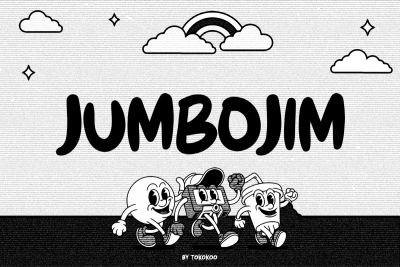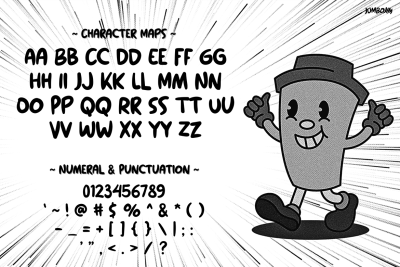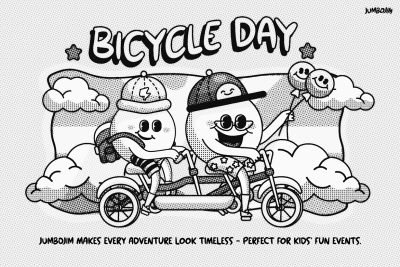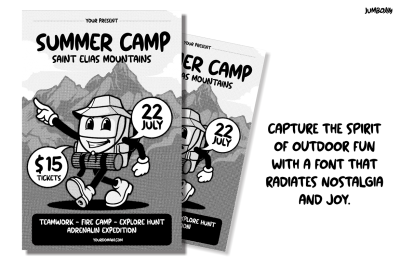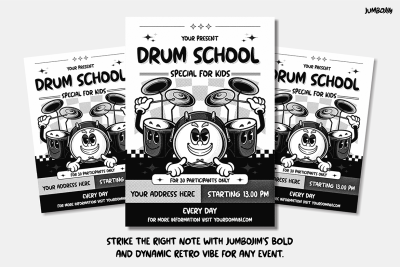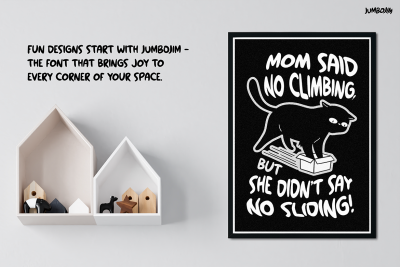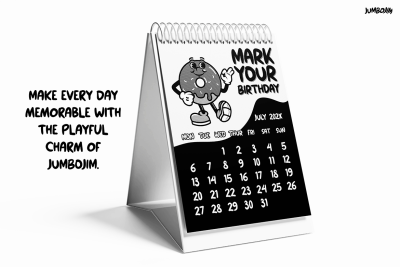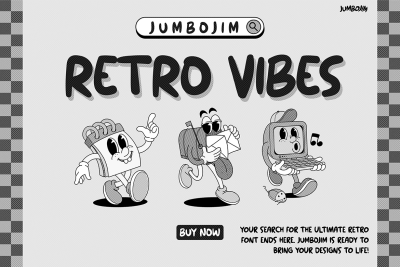
Kids Font Jumbojim is a lively, cartoon-inspired display font designed to spark joy and creativity. Its rounded, bubbly letterforms bring charm and playfulness, making it perfect for capturing the attention of children and families. Moreover, with its bold yet approachable style, Jumbojim adds fun and imagination to any project. Whether youโre crafting a childrenโs book, designing merchandise, or creating event posters, Jumbojim delivers a unique and cheerful personality that stands out.
This font stands out with its bold shapes and quirky appeal. Additionally, it balances readability with a whimsical touch, making it ideal for both print and digital use. Its hand-drawn feel evokes creativity and storytelling, which is perfect for entertaining or engaging young audiences. Furthermore, it works seamlessly with vibrant colors, dynamic layouts, and playful illustrations, making it a versatile option for any project.
Jumbojim isnโt just a typefaceโitโs a celebration of fun and laughter. In addition, it ensures your designs are not only eye-catching but also evoke joy and adventure. If youโre looking to add a playful, engaging touch to your work, Kids Font Jumbojim is an excellent choice.
Who Should Use Kids Font Jumbojim?
Kids Font Jumbojim is perfect for creators and brands targeting younger audiences or fun-filled projects. For instance, childrenโs book authors can use it to create whimsical titles and headings that appeal to young readers. Its playful vibe is also great for storybooks, activity books, or educational materials for kids.
Moreover, educators and content creators can incorporate Jumbojim into teaching resources and tools. It works well for worksheets, learning games, and digital presentations. Consequently, the fontโs friendly design makes learning more enjoyable and visually appealing for children.
Event planners and marketers can also rely on Jumbojim for kid-focused events, such as birthday parties or school fairs. For example, it makes invitations, posters, and banners vibrant and exciting, ensuring they grab attention and create a sense of fun.
Additionally, toy manufacturers and brands catering to children can use Jumbojim to build memorable identities. The font is excellent for product packaging, tags, and marketing materials, giving them a fun and relatable look. Therefore, it helps brands stand out in a competitive market.
Social media influencers targeting young audiences can also benefit from Jumbojim. It works perfectly for thumbnails, captions, and graphics that stand out and connect with followers. As a result, the font helps amplify engagement while maintaining a fun and quirky aesthetic.
In conclusion, Kids Font Jumbojim is ideal for anyone who wants to add charm, creativity, and fun to their designs. Whether youโre working on professional projects or personal ones, Jumbojim guarantees to make your work stand out with smiles.